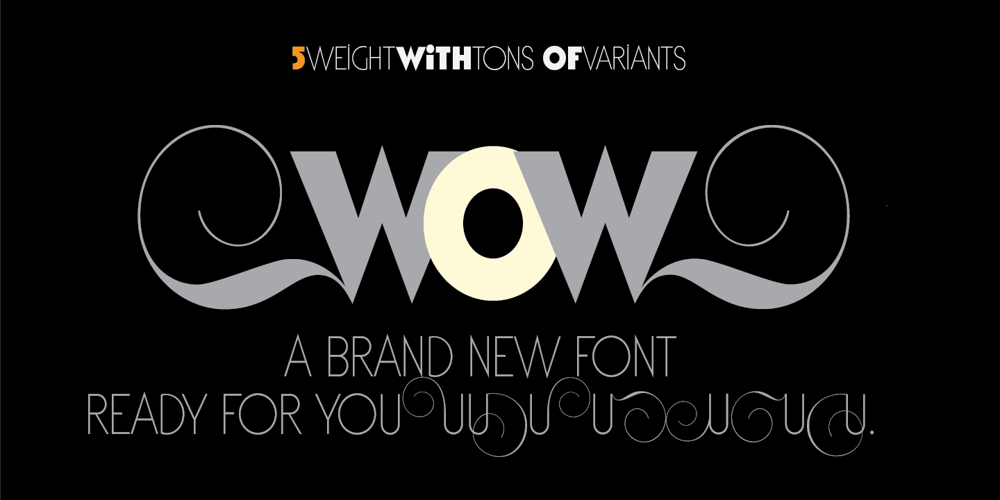
Italiano Fushion New Font Family was designed by Antonio Vignali and published by RM&WD. Italiano Fushion New contains 5 styles and family package options. Italiano Fushion is part of an expanding project on which we have been working for several years and which we are committed to in the future. Like the first two, this one too starts from the study of the great Futurist adventure of the early 1900s by great artists such as DEPERO and MARINETTI, who twisted the world of typography with shapes and colors. Italian Fushion is made up of almost 2,000 glyphs for each weight and in addition to hundreds of alternatives mainly, such as initials and endings of each word but also different alternatives for the letters I, J, Y. Thanks to the characteristics of Open Type, you can change them in automatic many of the alternatives, use it as a simple text font by changing only the I’s and J’s that have the typical capital dot, and giving the text a more fun breath to the composition. Italiano Fushion is suitable for large texts and to get the most out of it it is compulsory to transform the text into UPPERCASE text using the tabs of graphic applications such as Illustrator, or activate the Alternavive tabs and the various options of SS.Ideal for creating Logos, Head Lines, Web Titles, Posters, Epub Covers, Tatoo Projects, T-Shirts, Drink Labels …Thanks